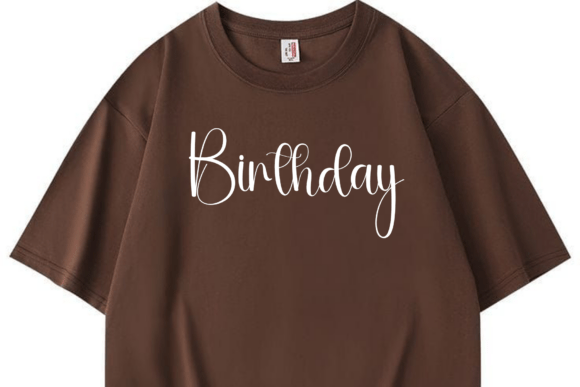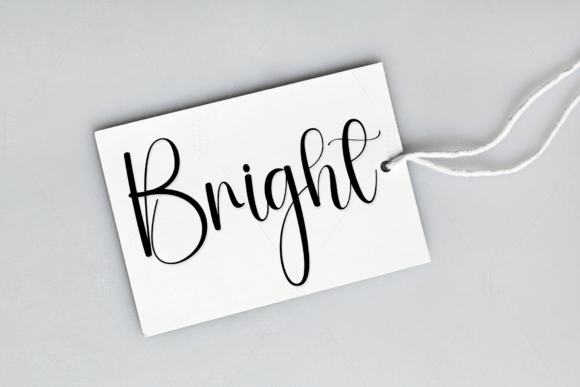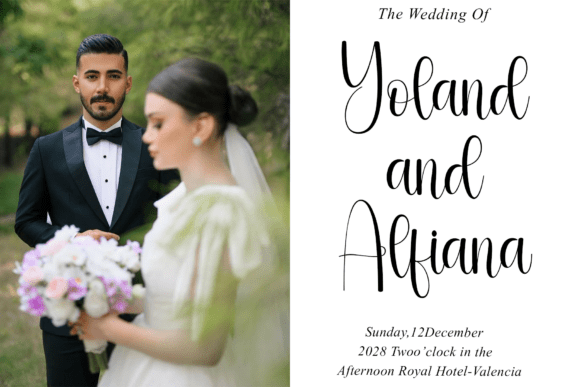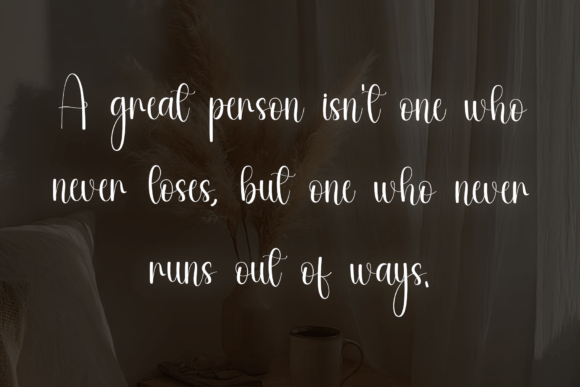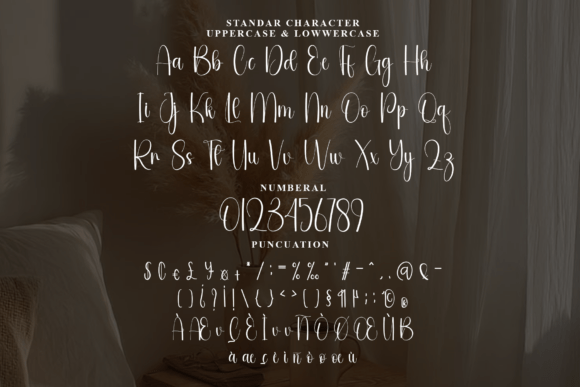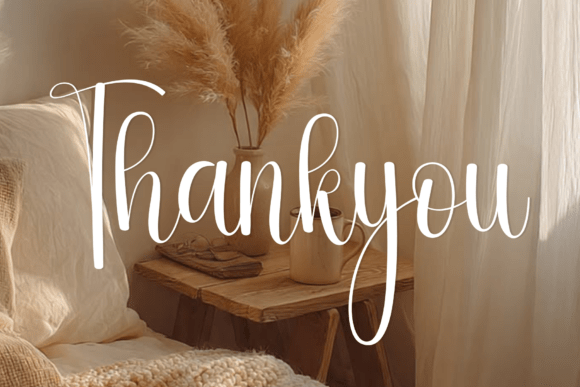
The Boho Font: A Breath of Fresh Air for Your Designs
Boho is a “unique and professional” entry into the modern handwritten collection, designed to evoke a sense of clarity and crisp elegance. Featuring tall, thin strokes with a subtle, airy slant, it offers a refined aesthetic that feels as fresh as a mountain breeze. Its clean and approachable style makes it ideal for travel photography, branding for outdoor gear, and sophisticated web design.
- ✨ Elegant and refined aesthetic that’s perfect for high-end designs
- 🌟 Beautifully crafted with attention to detail
- ⚠️ May not be the best fit for very bold or attention-grabbing designs
The Story Behind Boho Font
The Boho font was designed by a team of typographers who wanted to create a modern, handwritten font that exudes elegance and sophistication. Inspired by the great outdoors and the beauty of nature, they crafted a font that’s both refined and approachable. The result is a font that’s perfect for designs that require a touch of adventure and luxury.
Q: What is the Boho font best suited for?
A: The Boho font is ideal for travel photography, branding for outdoor gear, sophisticated web design, and high-end designs that require a touch of elegance and adventure.
Q: Is the Boho font available in different weights and styles?
A: Yes, the Boho font comes in various weights and styles, allowing you to experiment with different design options and achieve the desired look.